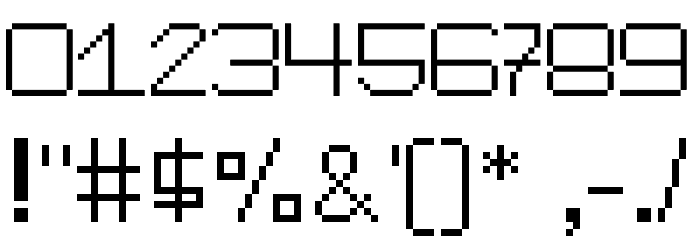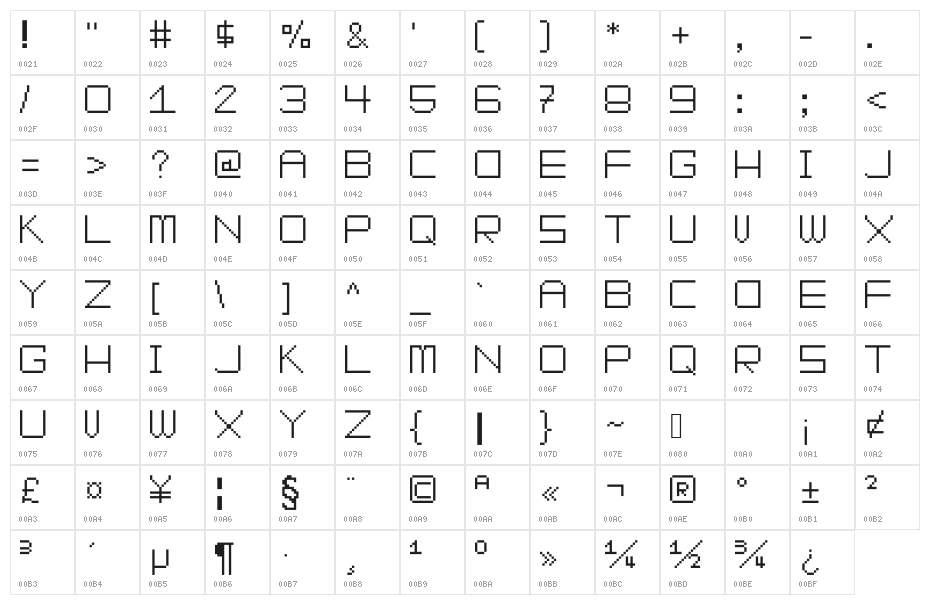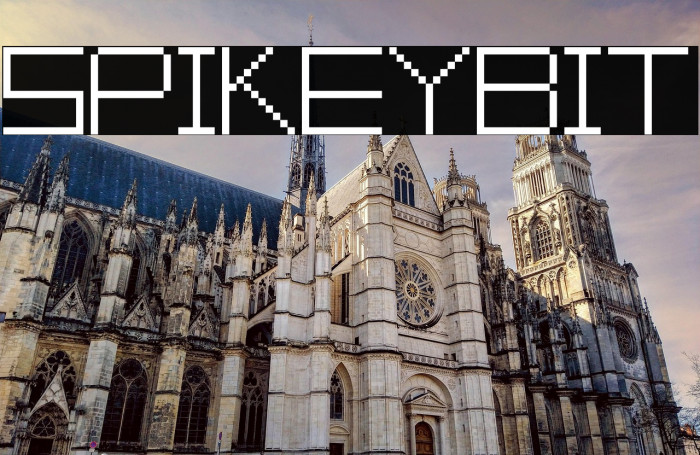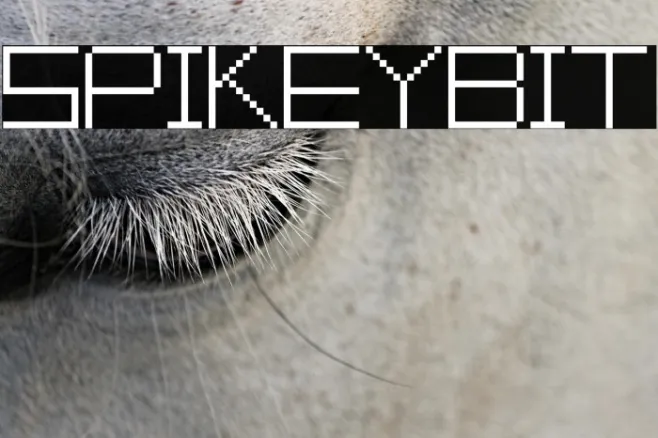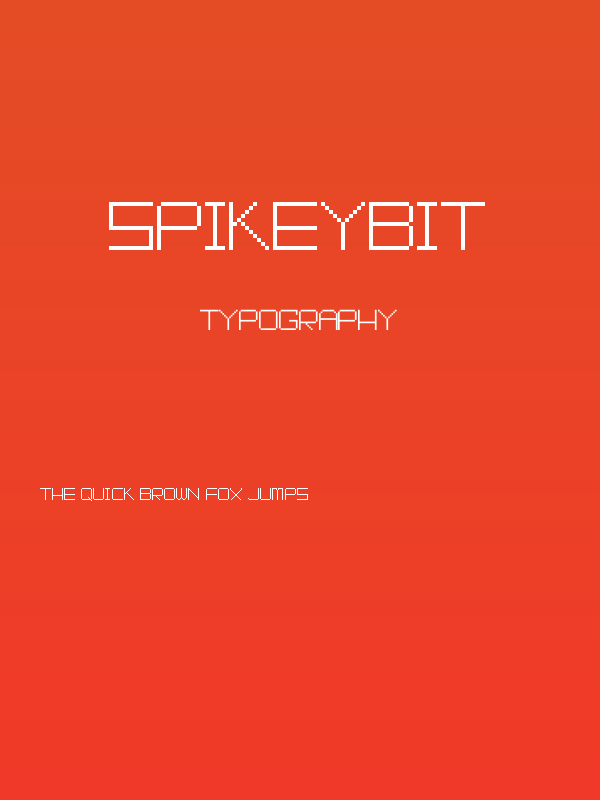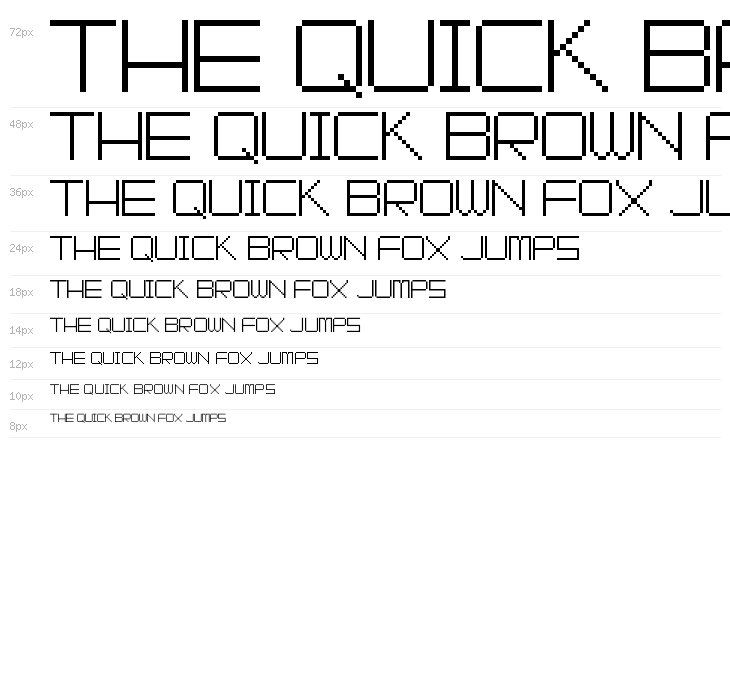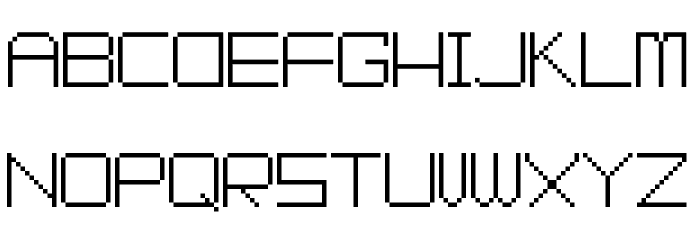
SpikeyBit Font
SpikeyBit Description
This font features a distinct pixelated design, reminiscent of early digital displays and retro video games. Each character is constructed with a grid-like precision, giving it a blocky, geometric appearance. The uniformity in line thickness and the angular nature of the characters contribute to its digital aesthetic. The uppercase and lowercase letters maintain a consistent style, with sharp edges and a minimalistic approach. Numbers and special characters follow the same design principles, ensuring a cohesive look across all glyphs. This font's simplicity and clarity make it suitable for digital interfaces and projects that require a retro or tech-inspired theme.
| Proposed Projects | Ideal for video game design, tech-themed posters, digital art projects, and retro-style branding. |